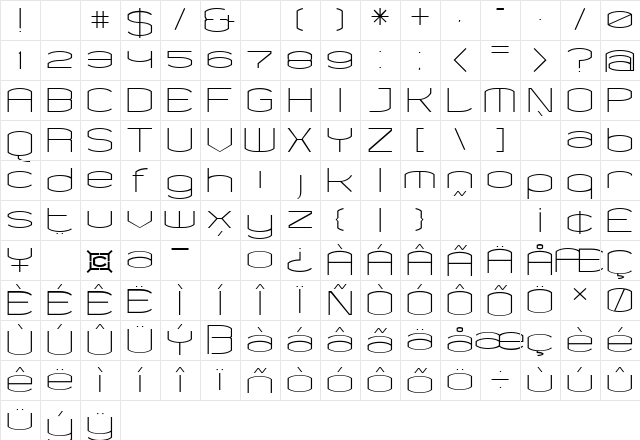
Chord Regular Font Preview
Chord Regular
Chord Regular Font Details
Design Context for Chord Typeface
Chord takes a measured approach to typography — its balanced proportions and neutral character make it a reliable workhorse for both digital and print work.